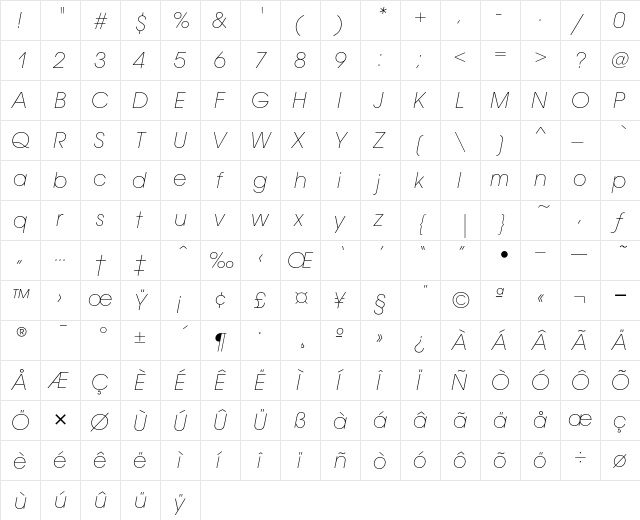
AvantGardeExtLitITC Oblique
Design Context for AvantGardeExtLitITC Typeface
AvantGardeExtLitITC takes a measured approach to typography — its balanced proportions and neutral character make it a reliable workhorse for both digital and print work. The dynamic lean of this cut emphasises speed and emphasis in any layout.
Pro Tip: Try AvantGardeExtLitITC for annotation and caption copy alongside an upright companion — the contrast in angle creates a dynamic but ordered typographic system.